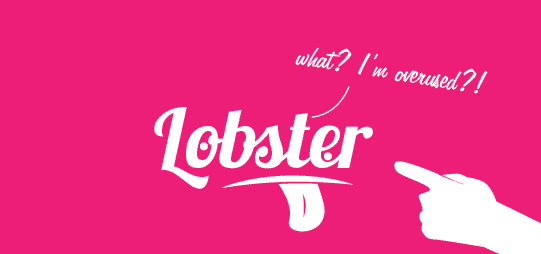
Lobster is an expressive Script font – it’s one of my least favorite fonts of all time, but I know from my search engine optimization work, that it’s something that people want and search all the time. (Keyword research)
Why I Hate The Font Lobster:
• It’s wildly overused – I see this font on everything from Birthday cake candles, to bad brochures.
• It’s too expressive – When a fonts style is THIS DISTINCT, when it’s overused you can’t help but notice it. It’s not like Helvetica, Gotham, or Brandon Grotesque – who are used quite often (perhaps to often?) but still don’t grate on my nerves because they aren’t so obvious and when used they feel much more inconspicuous because they aren’t so loud! If you love simple, clean whitespace (like you grow to love as a designer) Lobster of the opposite of that. Lobster is the new Comic Sans.
• It feels clunky – I am not a font designer, so I could not likely make a better font than Lobster without a ton of practice – but there ARE a lot of great alternatives (I will share shortly) that are expressive script fonts but don’t feel so thick, slabby and kind of awkward like Lobster.
Examples of the Font Lobster in Use:
Little Red Cap – Book Cover Design with Lobster
Poster Design with Lobster Font
Handlettering Using Lobster
Lobster font for handlettering
Bullfinch Design (from ‘Against The Lobster Font Abuse’)
Bullfinch Design using Lobster Font
Lobster Combination with Body Copy ‘Cabin Font’
Lobster Font Pairing Ideas - Cabin Font
A Little ‘On The Nose’ (With Other Problems Too)
Lobster Font Example on Website
Lobster is the new Comic Sans
Alternatives to the dreaded Lobster Font:
5 Other Most Hated Fonts & Where to Use Them
Most hated fonts, and where to use them
If you love annoying graphic designers, alternate using these 5 fonts and these only.
1. Papyrus
Nothing says musty church basement pamphlet, than a font that was apparently built to simulate a weather-worn English language knockoff of some Hebrew text. Good for: 5th Grade Invitations, Small-town church pamphlets, A rollerblading party